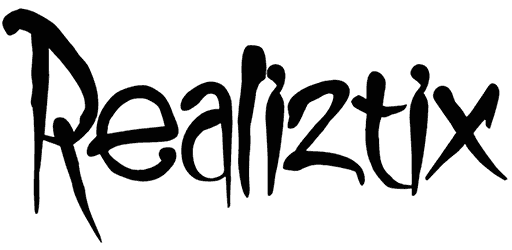
Realiztix Font
By adding spooky handwritten words, you can show the mood of a haunted air in the best way. Realiztix is a horror font with a casual and eerie face that is capable of making your creation outward out of this world. Place Realiztix in your prospective projects, namely ghost movies, horrifying games, posters, or suchlike, and be proud of your creative mind.